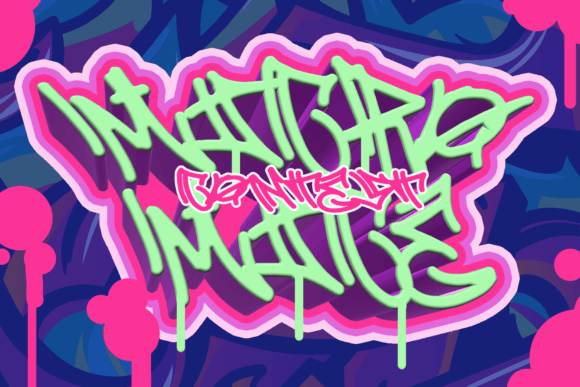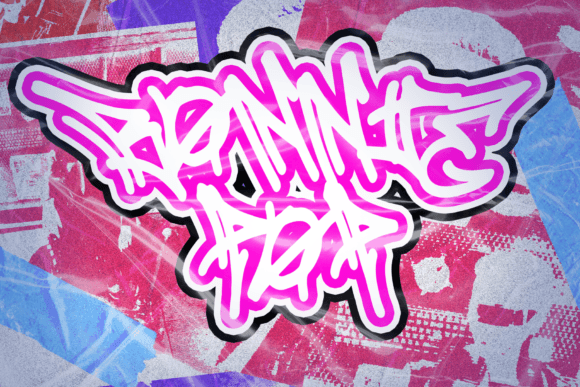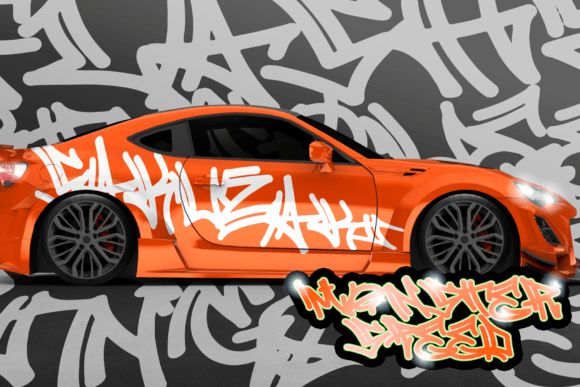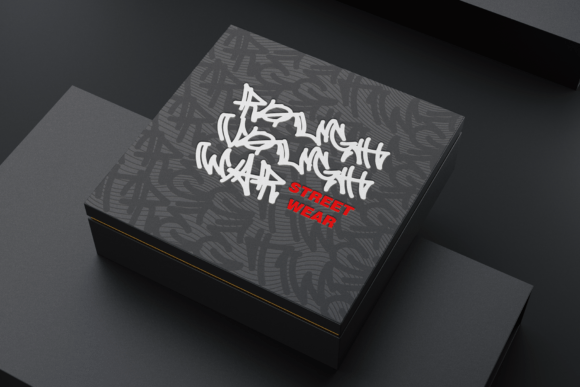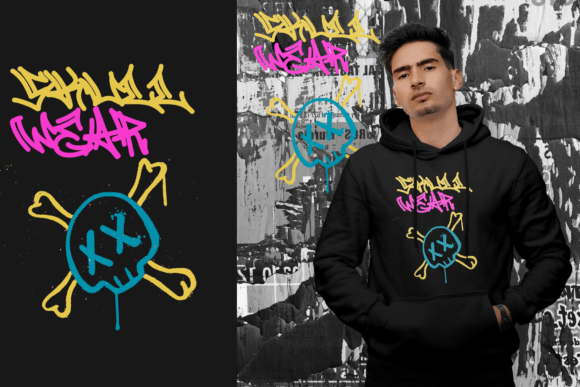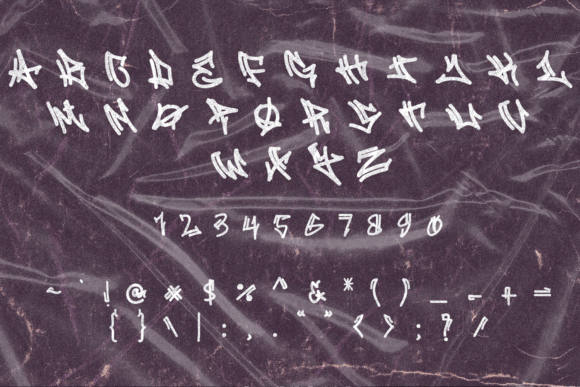
Introducing Genzi Street Font: Unleash the Urban Energy in Your Designs
Are you looking for a font that can add an edgy and raw touch to your design projects? Do you want to give your typography an authentic street vibe that resonates with urban culture? Look no further than Genzi Street Font, a monoline graffiti font that brings a natural street handwritten accent to the table. In this article, we’ll dive into the features and benefits of Genzi Street Font, and explore how it can elevate your design projects to the next level.
What is Genzi Street Font?
Genzi Street Font is a monoline graffiti font that is designed to capture the essence of urban street culture. With its bold and edgy lines, this font is perfect for designers who want to add a touch of grit and dynamism to their work. Genzi Street Font features natural street handwritten accents that give it a unique and authentic feel, making it ideal for a wide range of design projects with an urban or street theme.
Key Features of Genzi Street Font
- Monoline Graffiti Style: Genzi Street Font boasts a monoline graffiti style that is both bold and edgy, making it perfect for urban-themed designs.
- Natural Street Handwritten Accents: The font features natural street handwritten accents that give it a unique and authentic feel.
- Highly Versatile: Genzi Street Font is perfect for a wide range of design projects, including urban branding, streetwear designs, and more.
Benefits of Using Genzi Street Font
So, why should you choose Genzi Street Font for your design projects? Here are just a few benefits of using this amazing font:
- Adds an Urban Touch: Genzi Street Font adds an authentic urban touch to your designs, making them stand out from the crowd.
- Enhances Creativity: With its edgy and raw style, Genzi Street Font can inspire your creativity and help you come up with fresh and innovative design ideas.
- Perfect for Streetwear and Urban Branding: The font is specifically designed for streetwear and urban branding projects, making it a must-have for designers working in these fields.
How to Use Genzi Street Font in Your Designs
Using Genzi Street Font in your designs is easy. Here are a few tips to get you started:
- Pair it with Other Fonts: Genzi Street Font can be paired with other fonts to create a unique and dynamic typography.
- Experiment with Colors: The font looks great in bold and bright colors, so don’t be afraid to experiment with different color schemes.
- Use it for Headings and Titles: Genzi Street Font is perfect for headings and titles, where its bold and edgy style can make a big impact.
| Font Name | Genzi Street Font |
| Author | sipanji figuree |
In conclusion, Genzi Street Font is a powerful and versatile font that can add an urban touch to your design projects. With its monoline graffiti style and natural street handwritten accents, this font is perfect for designers who want to create authentic and gritty designs. Whether you’re working on urban branding, streetwear designs, or any other project that requires a dynamic and edgy look, Genzi Street Font is the perfect choice. So why wait? Unleash your creativity and embrace the urban energy with Genzi Street Font.